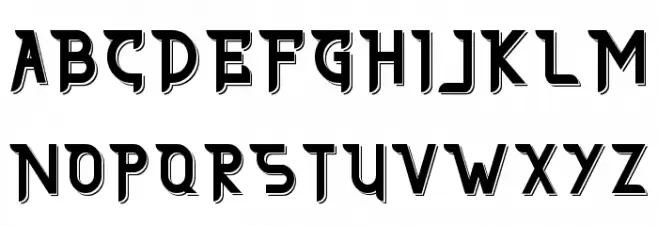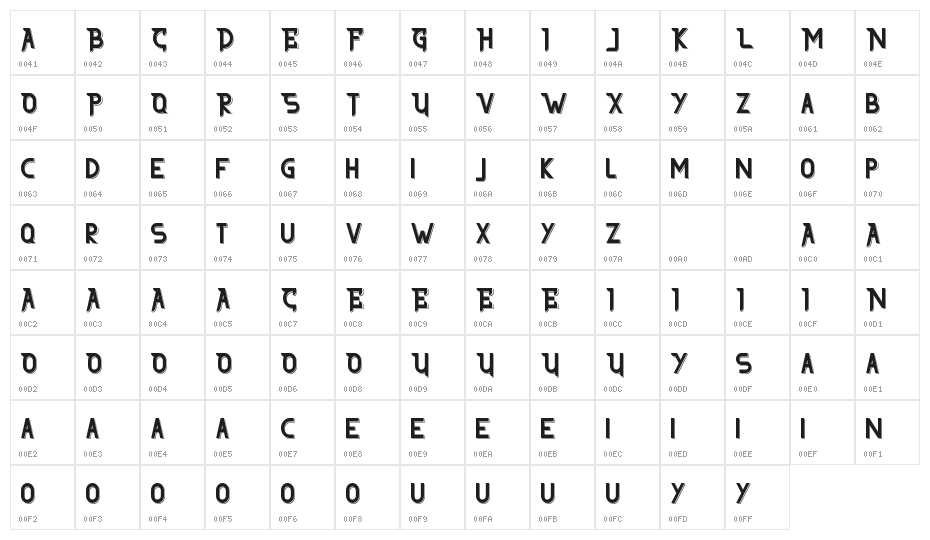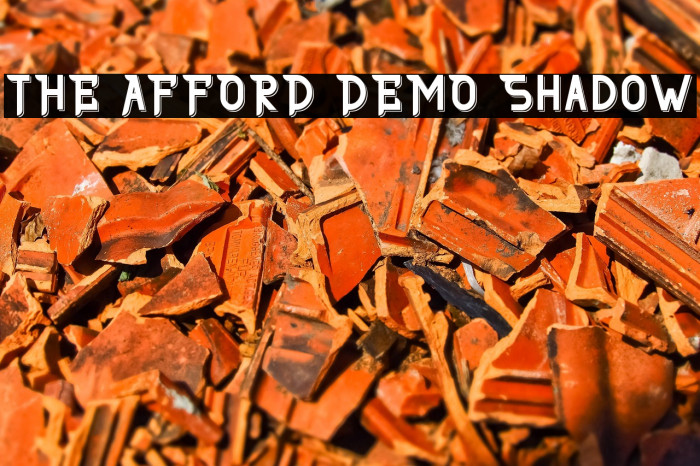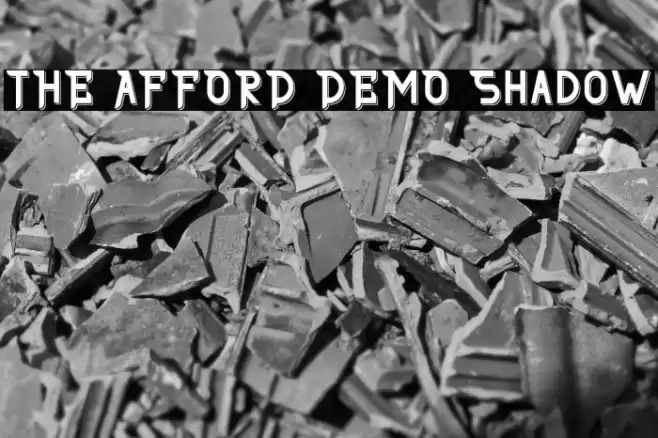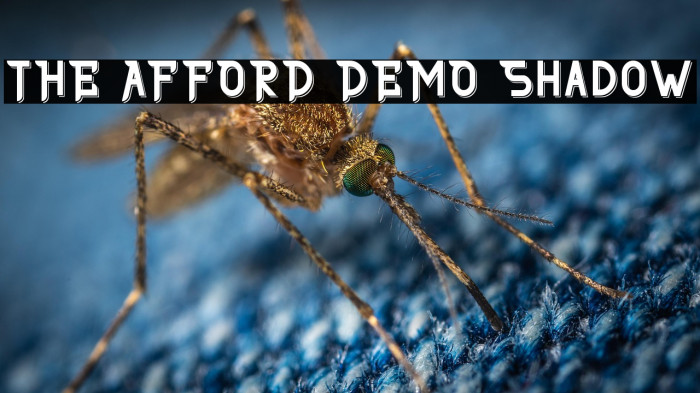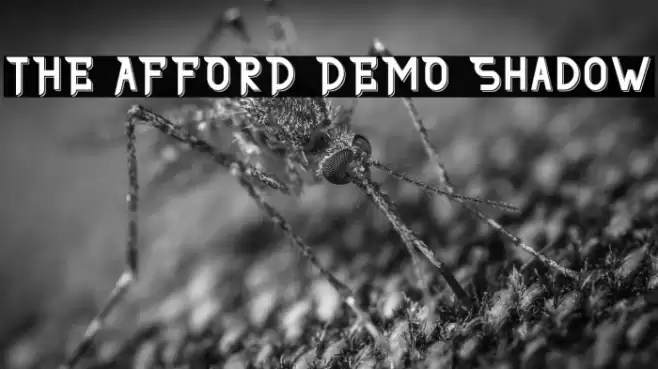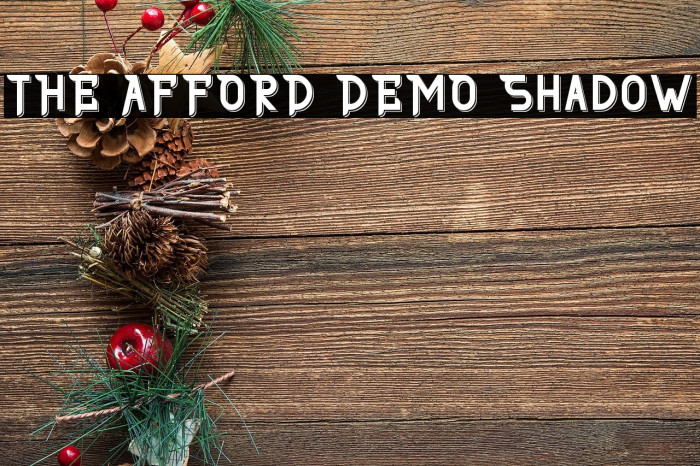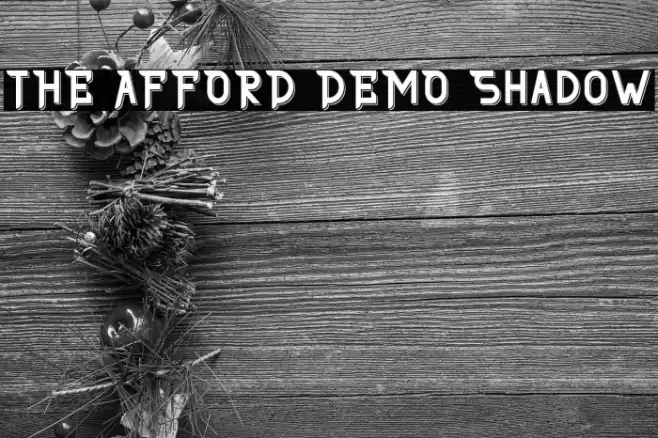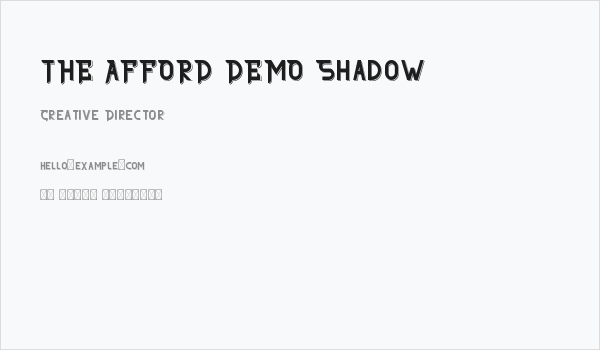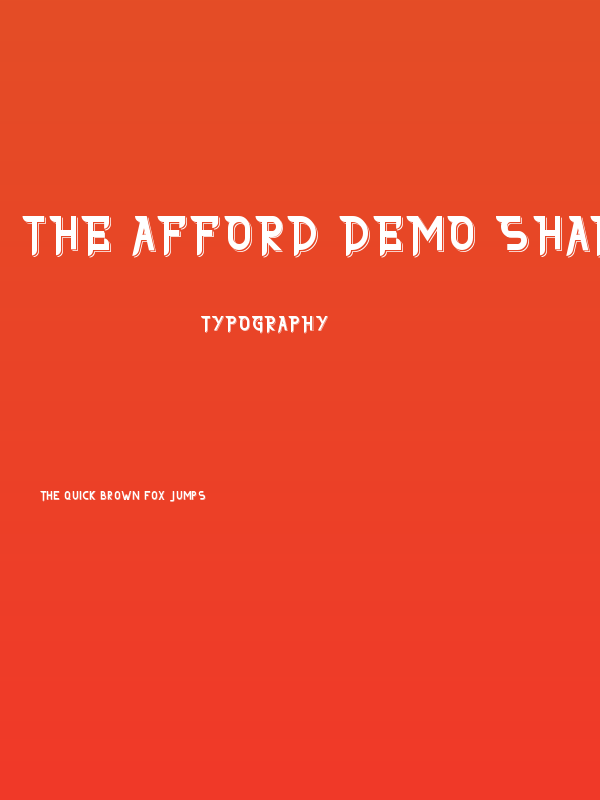
THE AFFORD DEMO Shadow Font
THE AFFORD DEMO Shadow Description
This font features a bold and striking design with a shadow effect that gives it a three-dimensional appearance. The characters are uppercase only, with sharp angles and a geometric style that adds a modern and edgy feel. The shadow creates a sense of depth, making the letters stand out prominently. This font is ideal for creating attention-grabbing headlines or titles, where a strong visual impact is desired. The consistent width and spacing ensure readability while maintaining its decorative appeal.